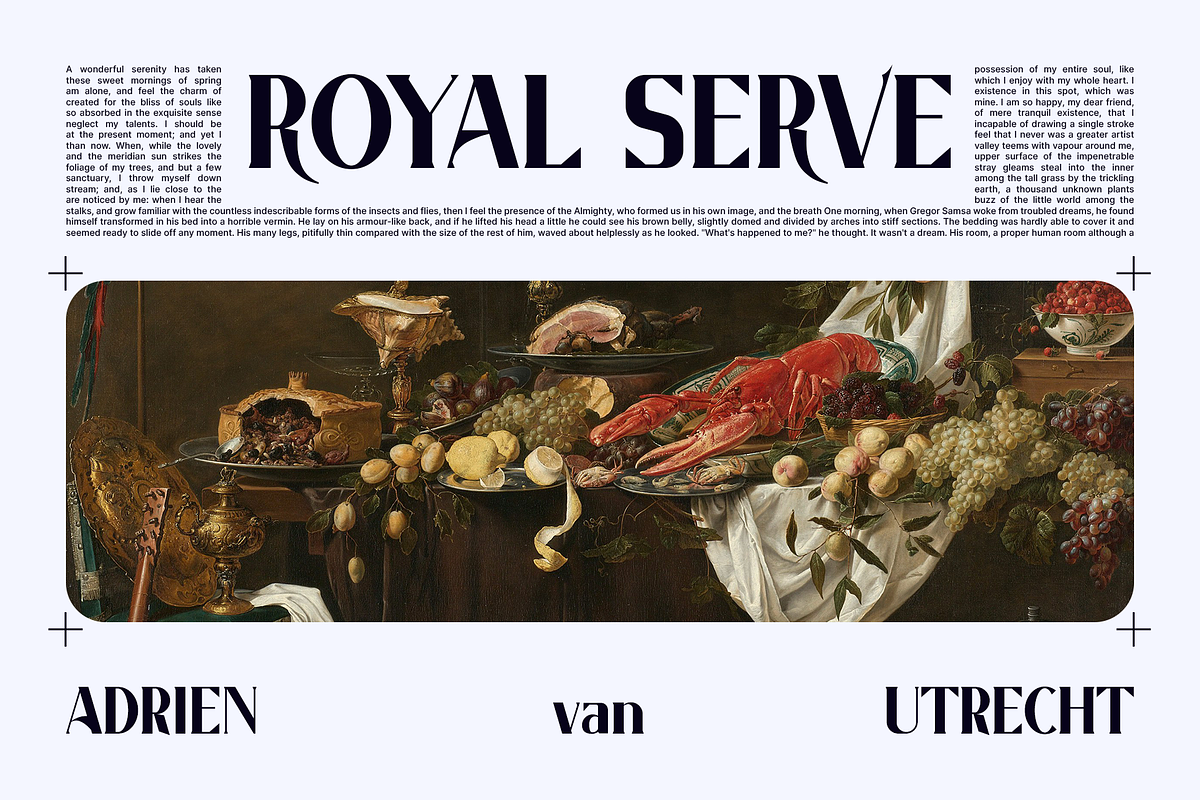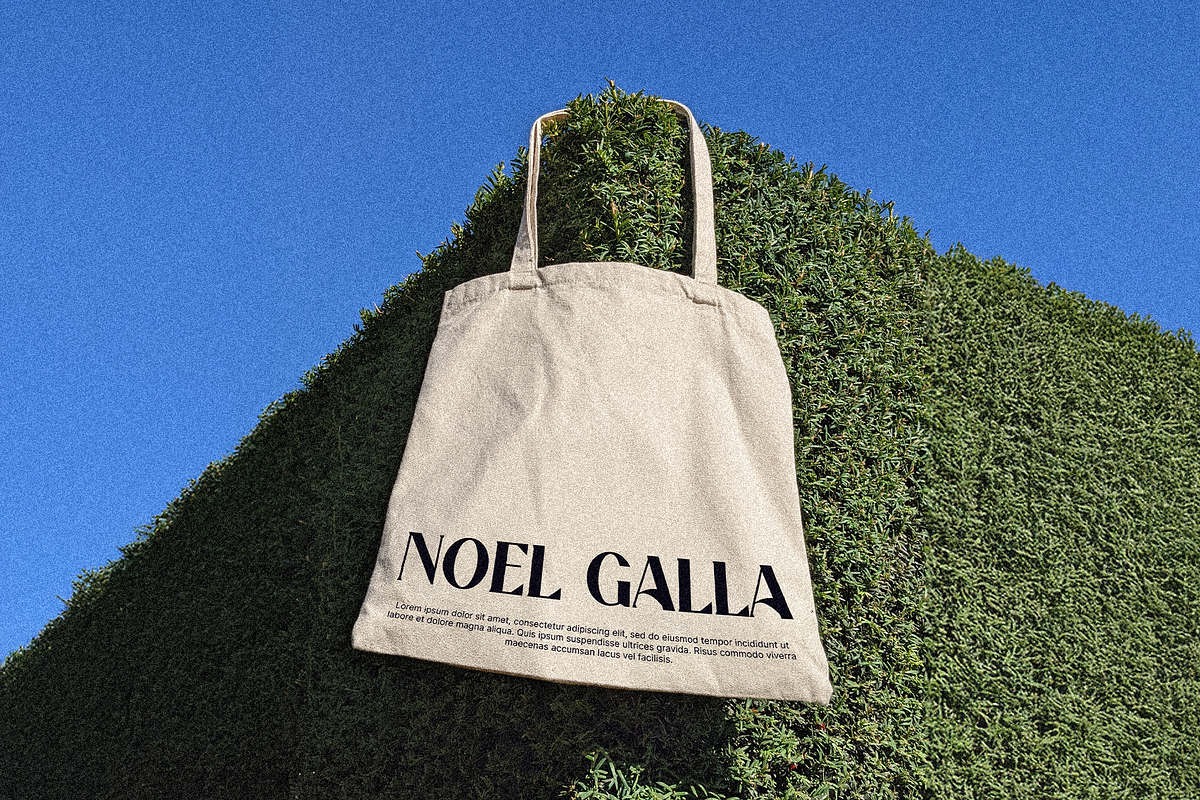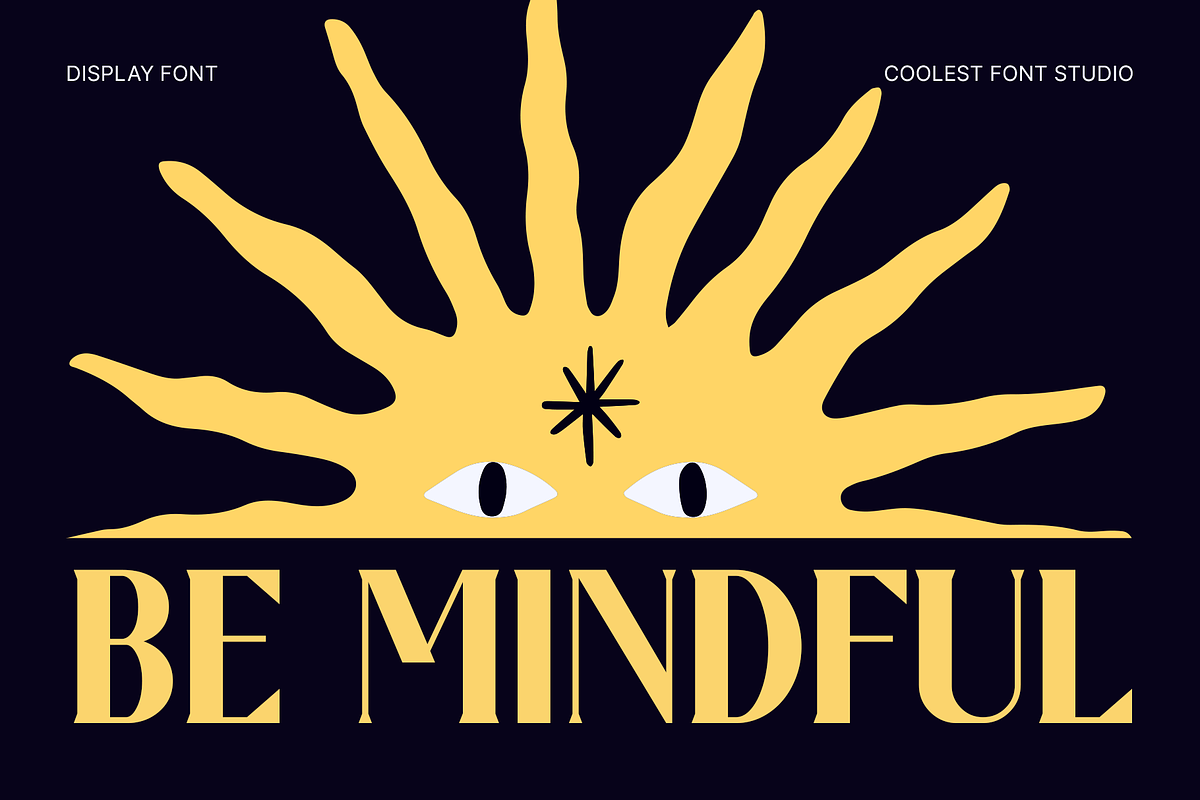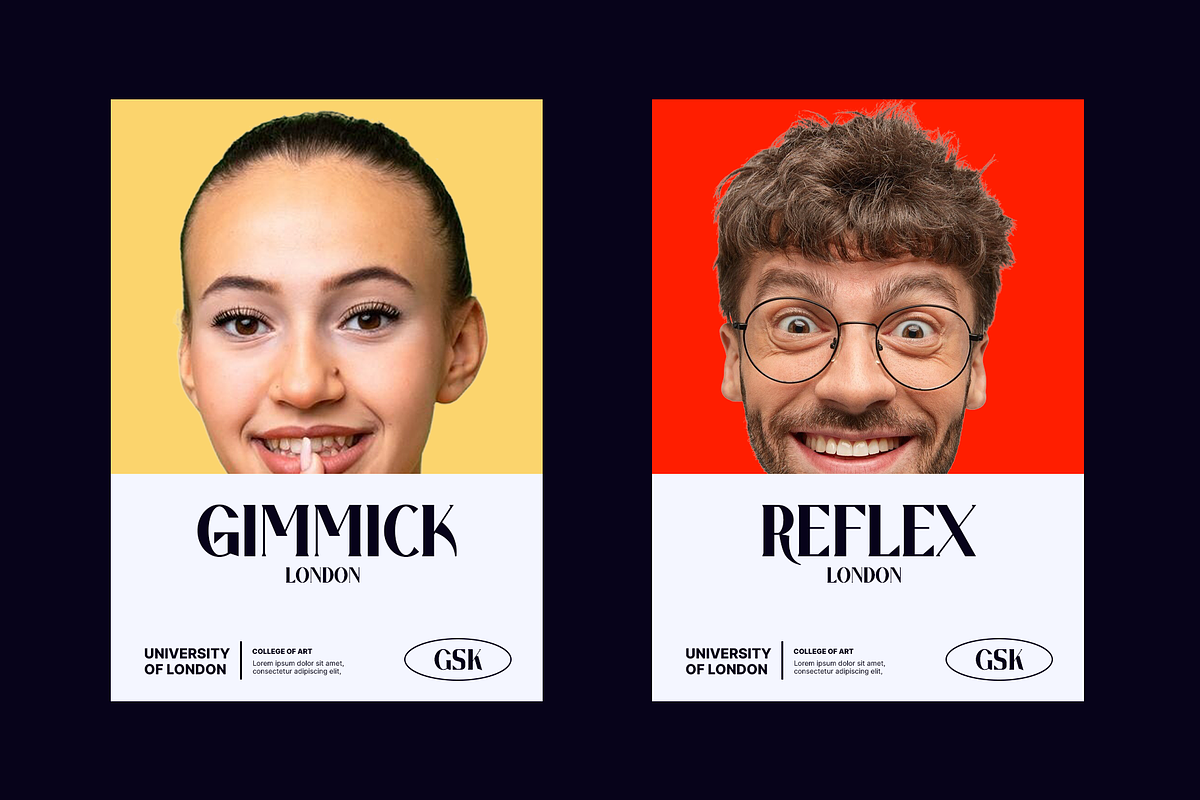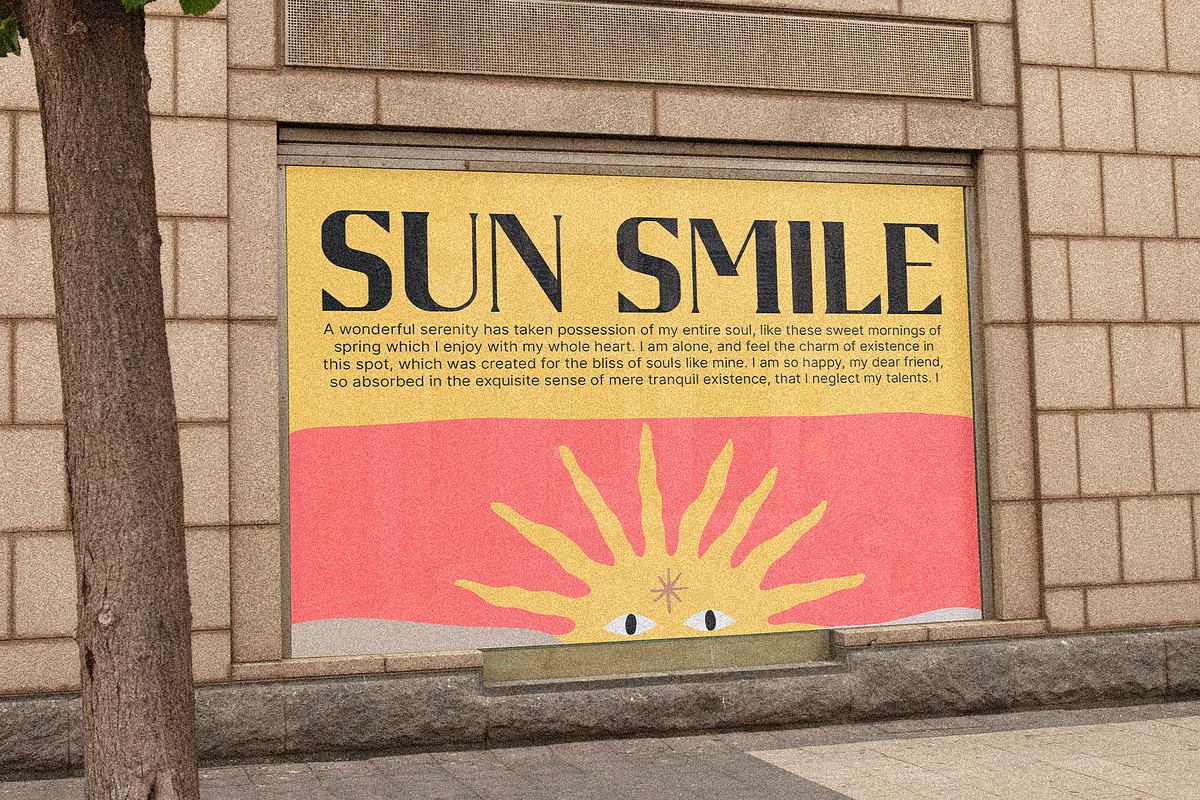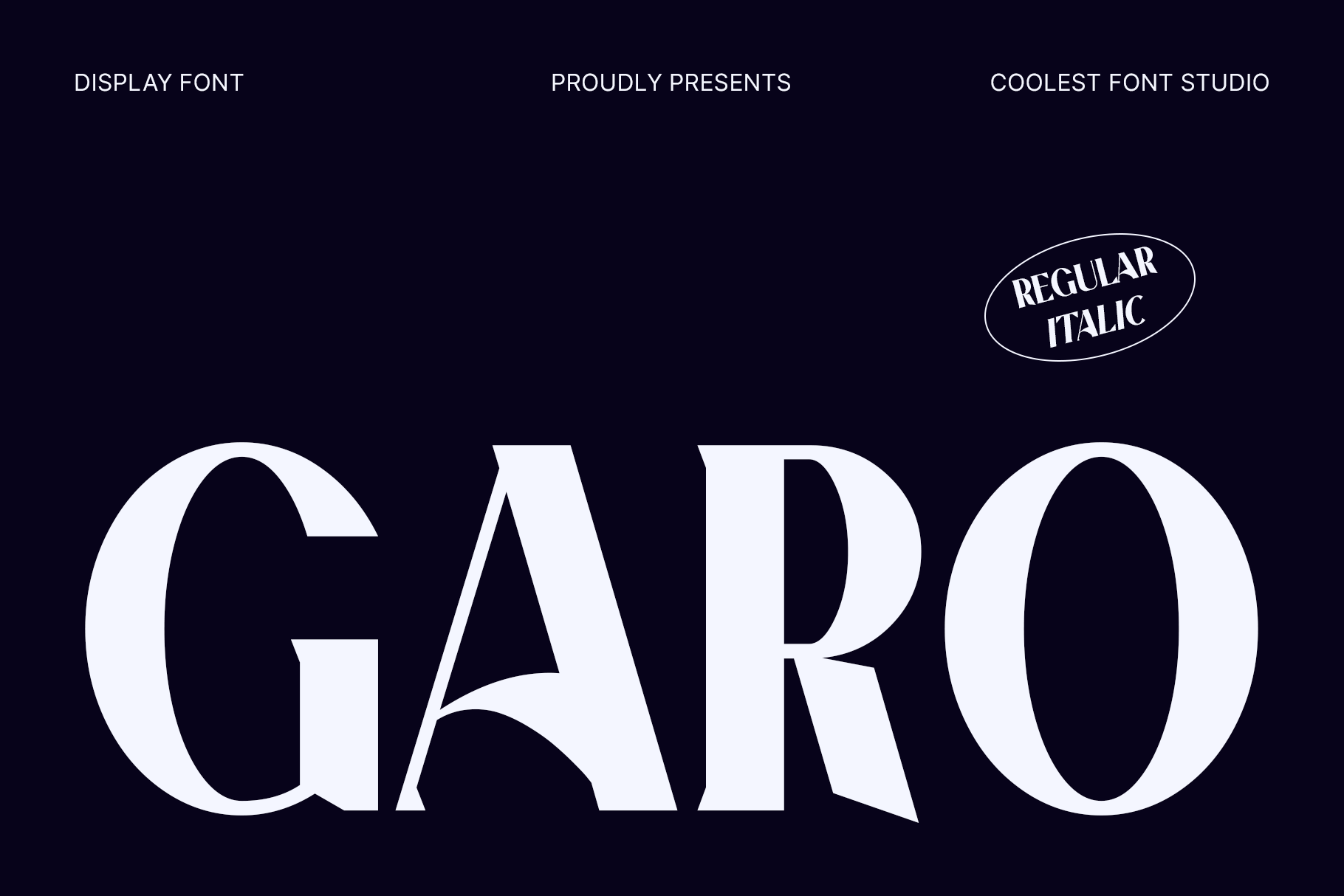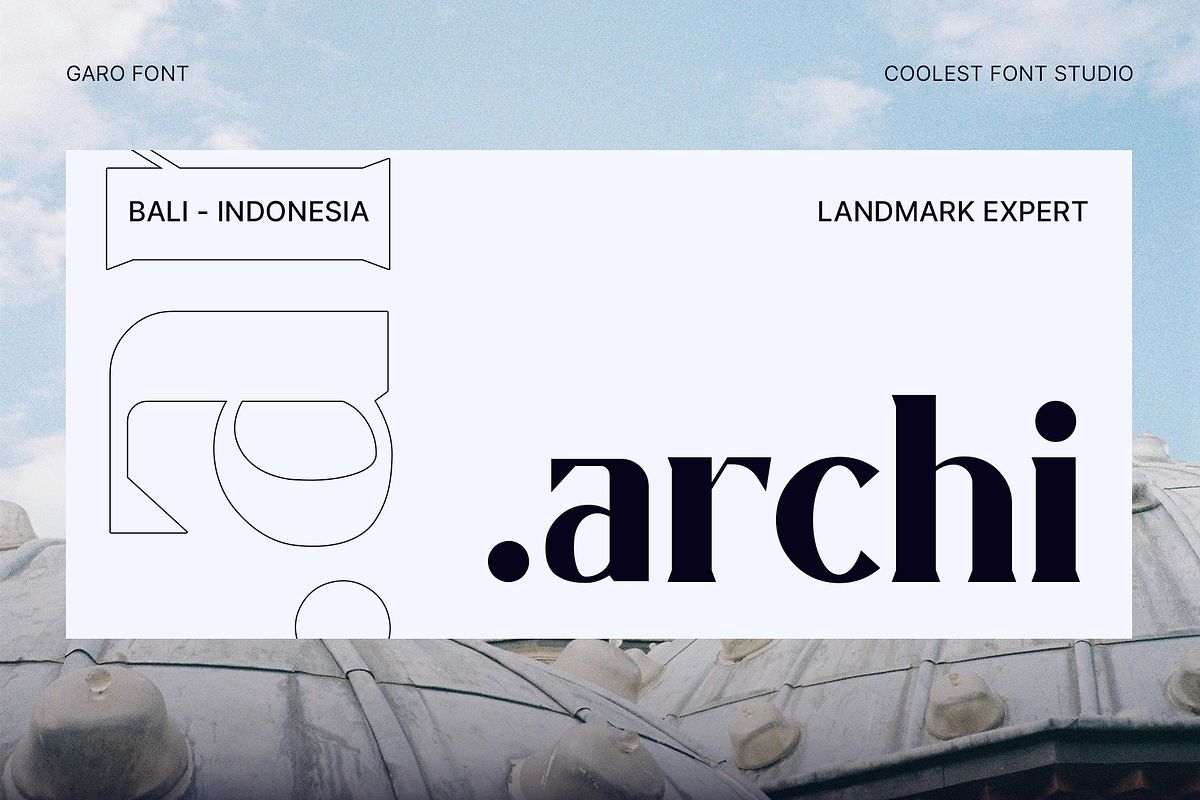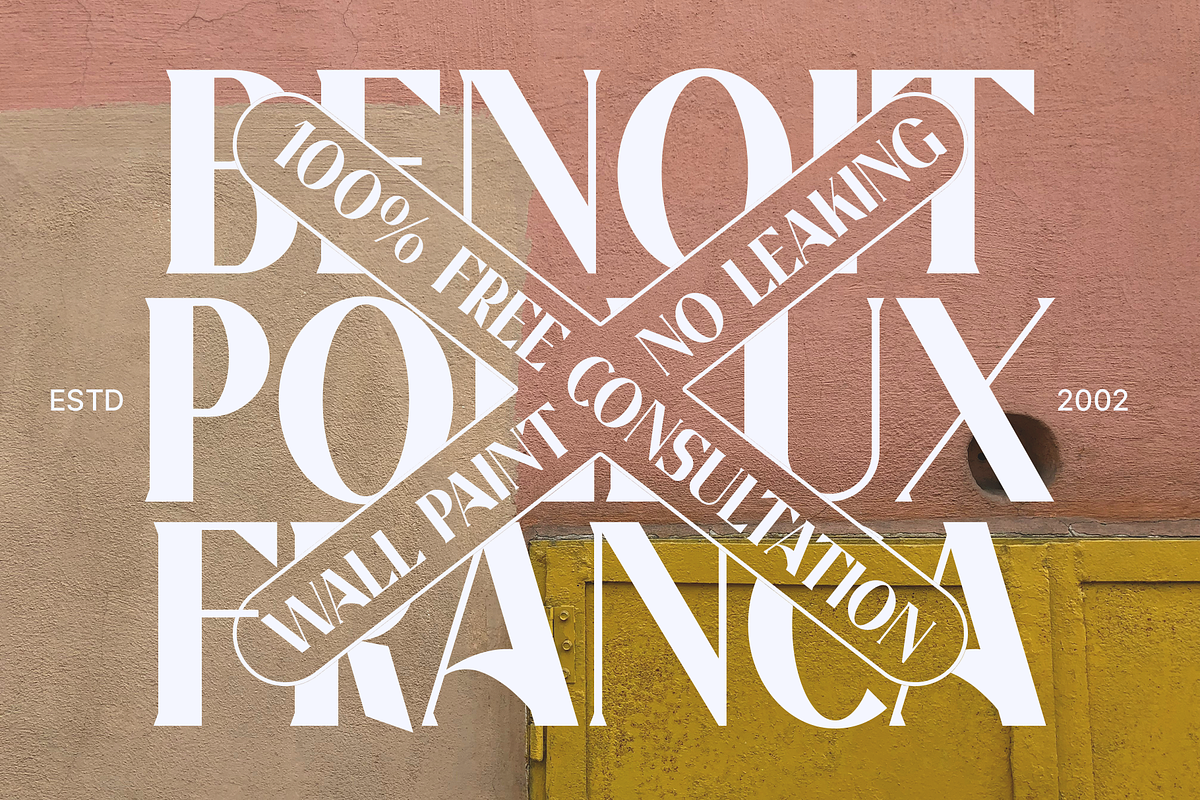
Garo – Serif Font
Garo – Modern Serif Font for Elegant Branding & Editorial Design
Garo – Serif Font, a timeless and stylish serif typeface crafted to elevate your design game. With its refined curves, bold presence, and luxurious aesthetics, Garo is the perfect choice for designers seeking elegance and sophistication.
From chic editorial layouts to modern branding, this font brings a premium feel to any project.
- Luxury branding
- Logo design -- High-end packaging
- Editorial and magazine layouts
- Fashion lookbooks
- Restaurant menus
- Instagram and social media content
Why You’ll Love Garo:
- Elegant & Professional: Every curve and serif is carefully designed to blend beauty and function.
- Versatile Use: Works great on both digital and print media.
- Stylish Presence: Adds a sophisticated touch to minimalist or modern designs.
💡 Pro Tip: Pair Garo with clean sans-serif fonts for an ultra-modern luxury look, or use it solo for bold, high-fashion branding.